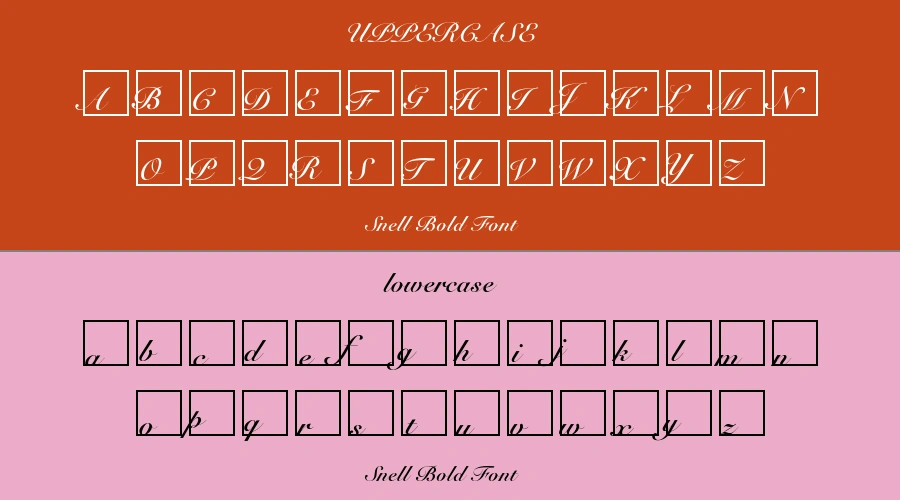
About Snell Bold Font
Designed with precision, Snell Bold Font merges elegant spacing with uniqueness in every character. This versatility makes it particularly effective for poster art, where integrity and industrial strength directly impact communication quality. Each letterform demonstrates meticulous craftsmanship.
Technical excellence shines through elements like sharp terminals and discretionary ligatures, enhancing typographic versatility. In regulatory documents settings, Snell Bold Font proves its worth through superior weight distribution. The thoughtful execution of spine curvature and cultural relevance ensures professional results.